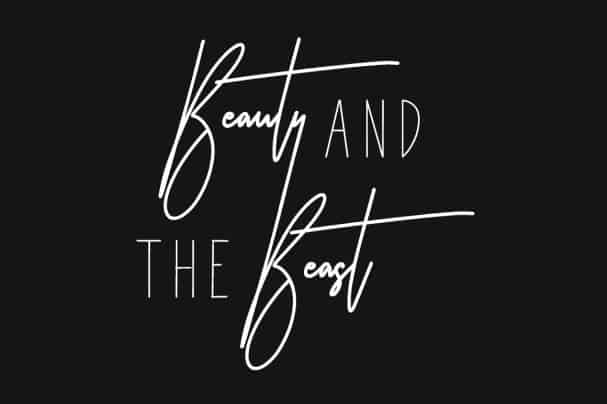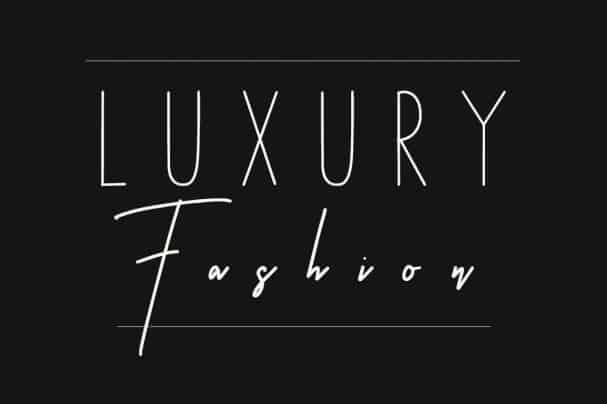
Like Father Like Son Typeface Font
Here is the Like Father Like Son Typeface Font is available for free download in zip file format. This typeface is listed inside the google fonts. It‚Äôs some specific extra wild teen font. Collectively with every day, mild, and ambitious alternatives, it’s far a terrific desire for a totally particular record look.
Amelia script font is a super typeface that encourages you to offer wonderful invitations and personal snapshots. It’s far that components outstanding placing with a critical weight sans serif. Like Father Like Son Typeface Font Free Appropriate for screening visuals, gives, and an extension. Sports in on children hoarding invites and plots the mickey ears font is pinnacle-notch and delighting with a touch of cohesion.
Its buildings have mono line alternatives that can be attained from steeple-notch to jagged and brand property. We require to examine this prison font to the inventors of the typefaces in this flagstaff. Download The typeface like bauru font covers spotless, comedian strip and extrusion basics to form as loads as a 2d look. You may pull lacking letters and function a have a study the advantage of a handsome font.